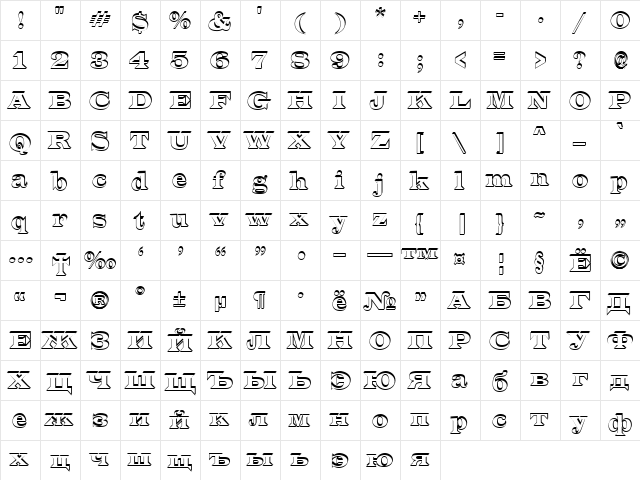
a_LatinoSh Regular
Design Context for a_LatinoSh Typeface
a_LatinoSh offers clean, dependable letterforms without strong stylistic allegiance, making it a practical choice for designers who need flexibility.